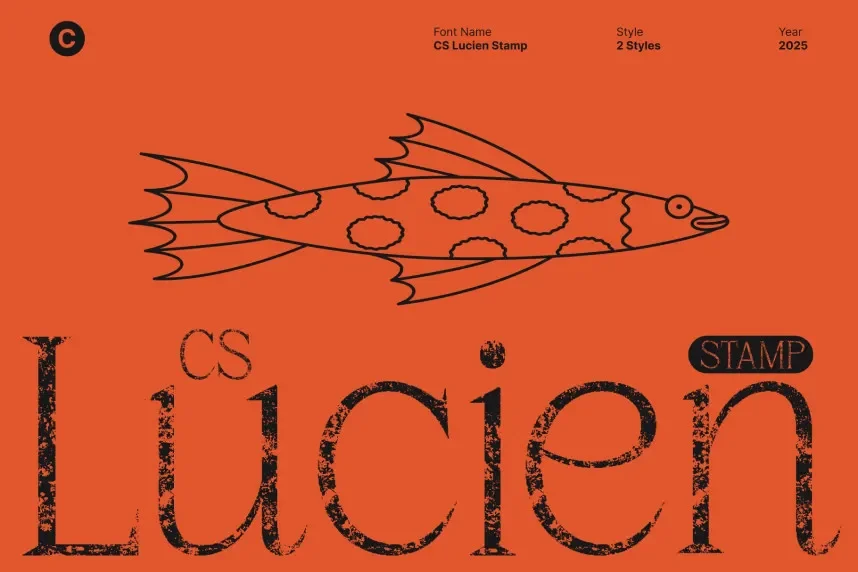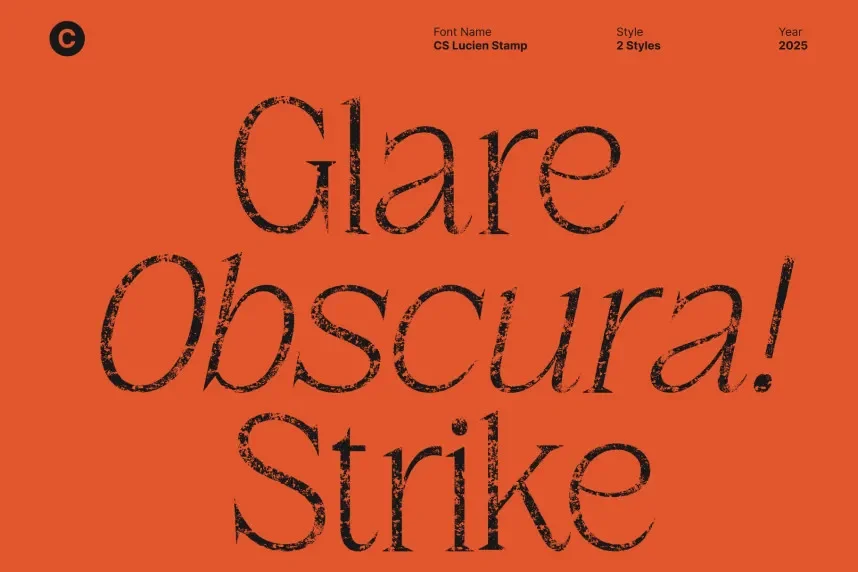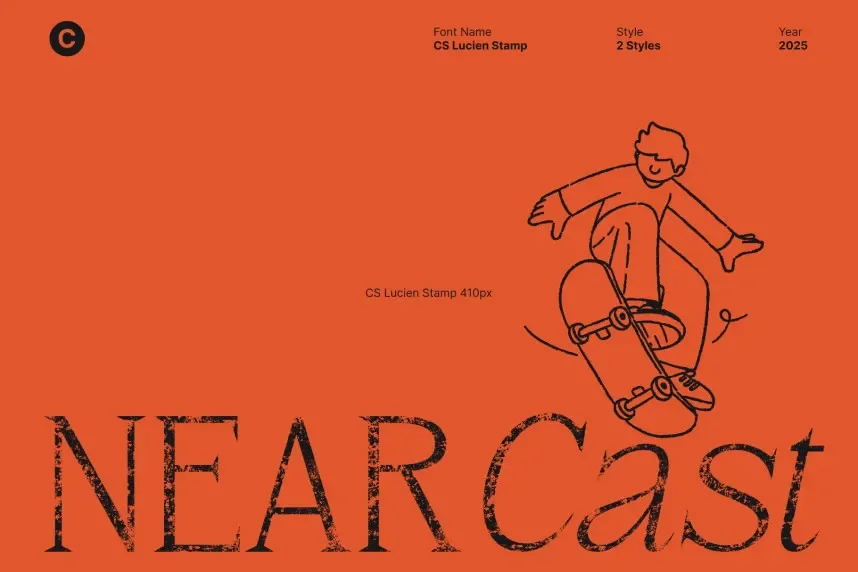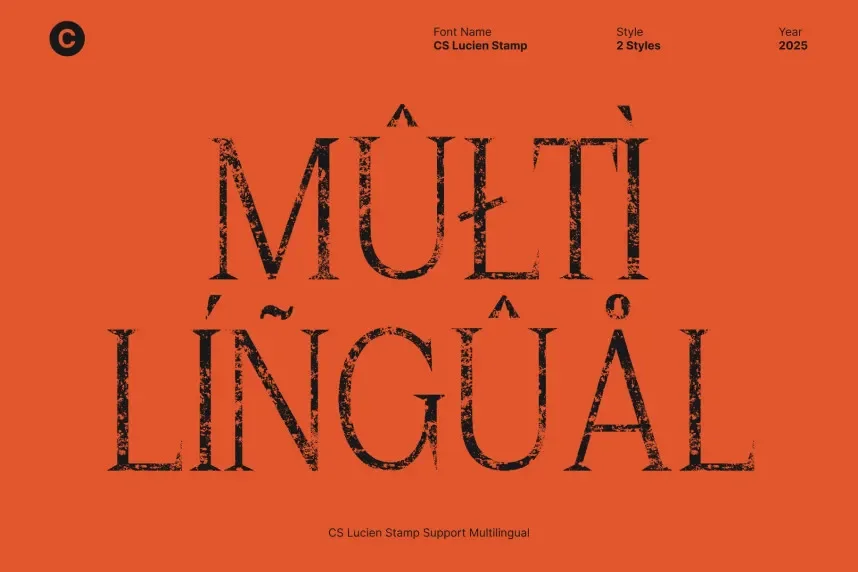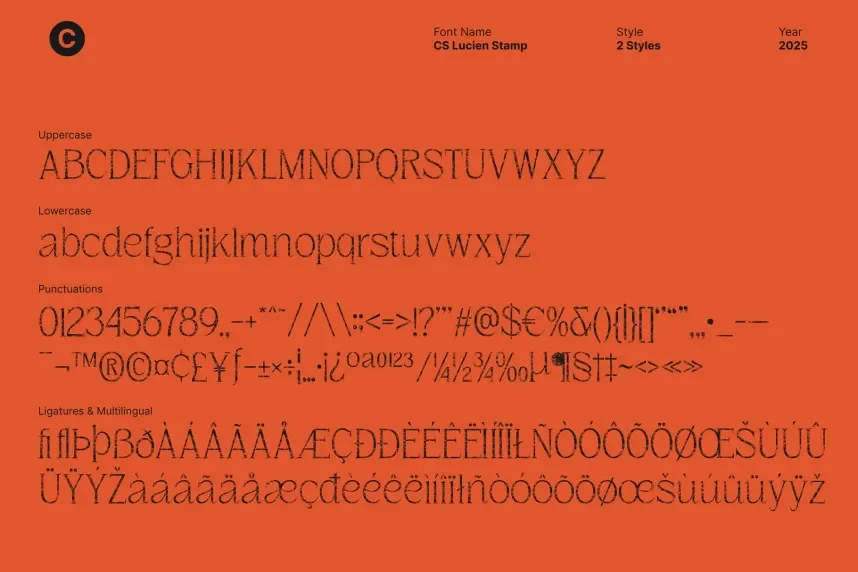
CS Lucien Stamp Font solves the need for a distressed, industrial-style font that maintains clarity in design. It is commonly used in projects requiring a vintage, worn look.
CS Lucien is a stamp-style display font with rough edges and uneven strokes, simulating the effect of an old stamp or print. Its distressed texture gives it an authentic, industrial feel, perfect for short, impactful text.